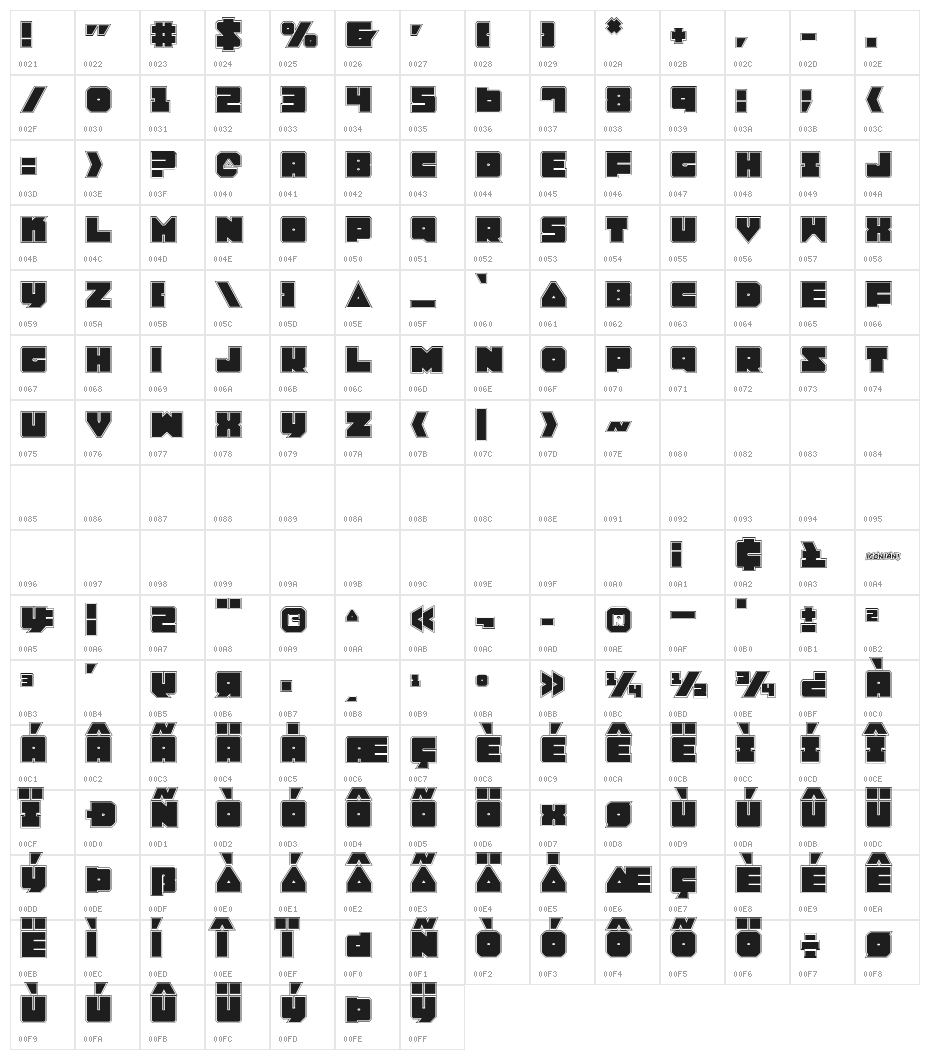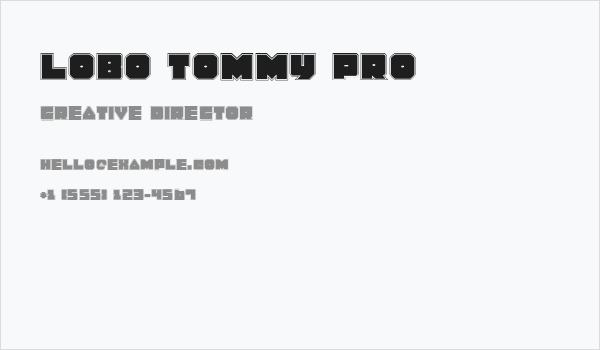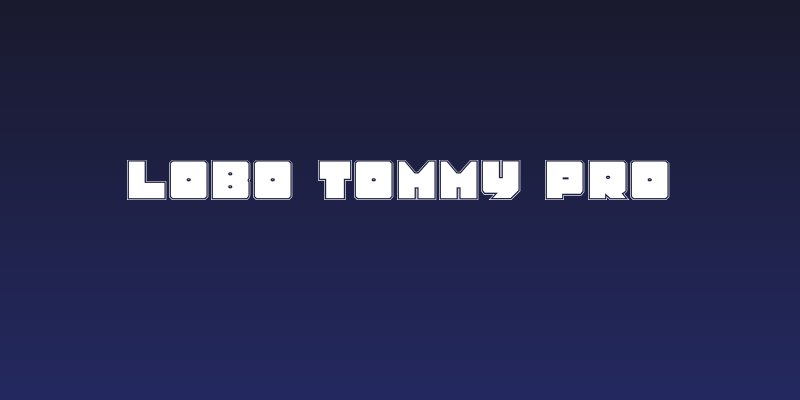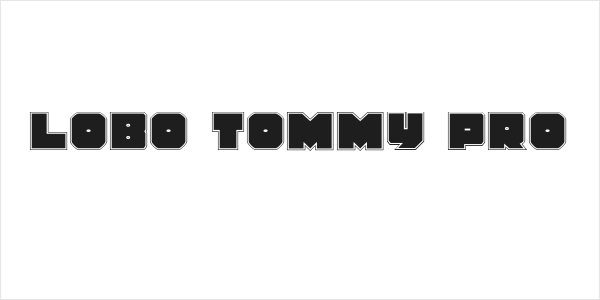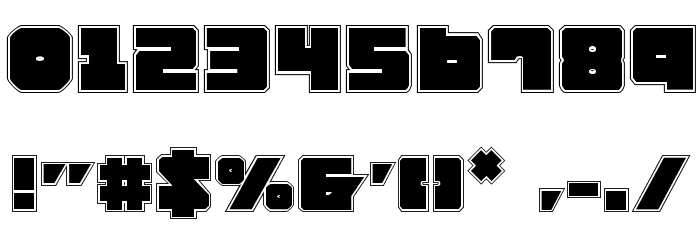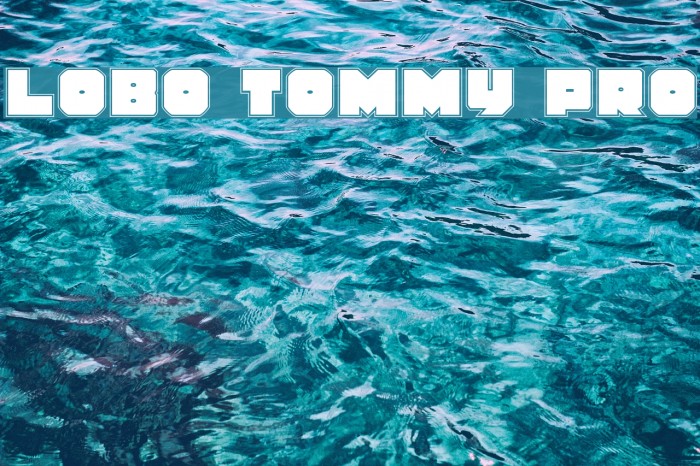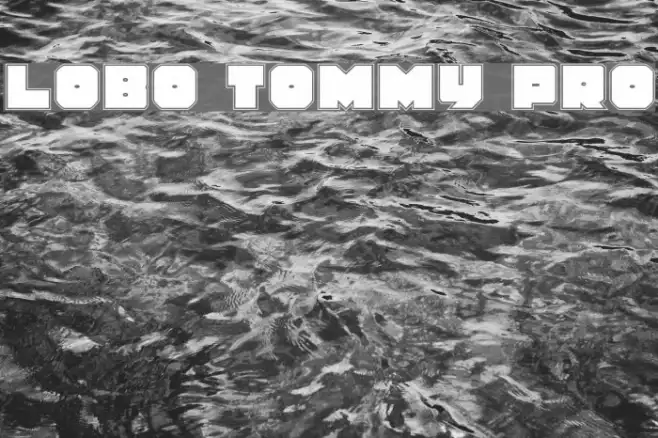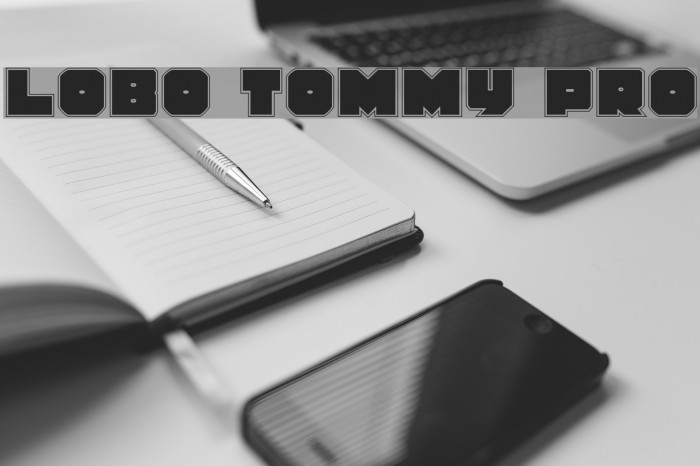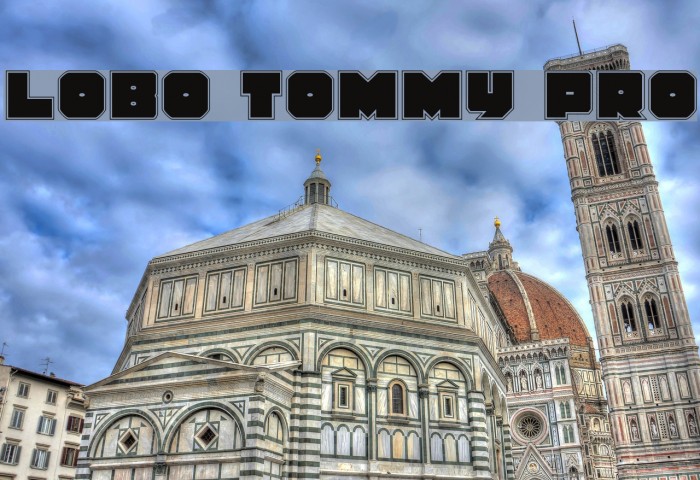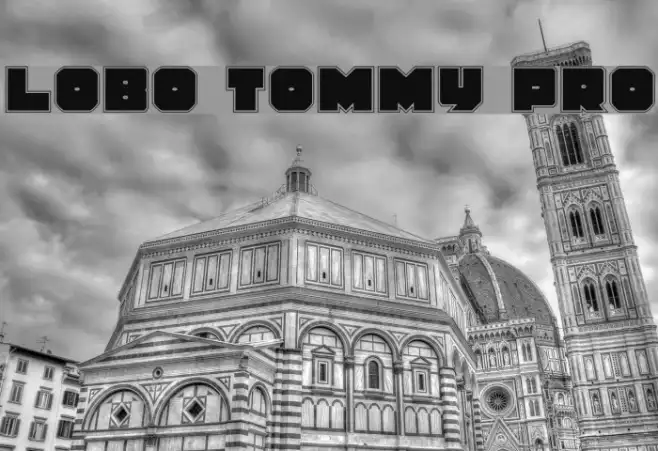
Lobo Tommy Pro Font
Lobo Tommy Pro Description
This font features a bold, geometric design with a strong presence. The characters are blocky and angular, with a distinct outline that adds depth and dimension. The uppercase and lowercase letters maintain a consistent style, emphasizing a futuristic and industrial aesthetic. The numbers and special characters follow the same design principles, ensuring uniformity across all glyphs. The font's unique style makes it ideal for projects that require a modern and impactful look.
| Proposed Projects | Ideal for branding, posters, video game graphics, and any project needing a modern, bold statement. |